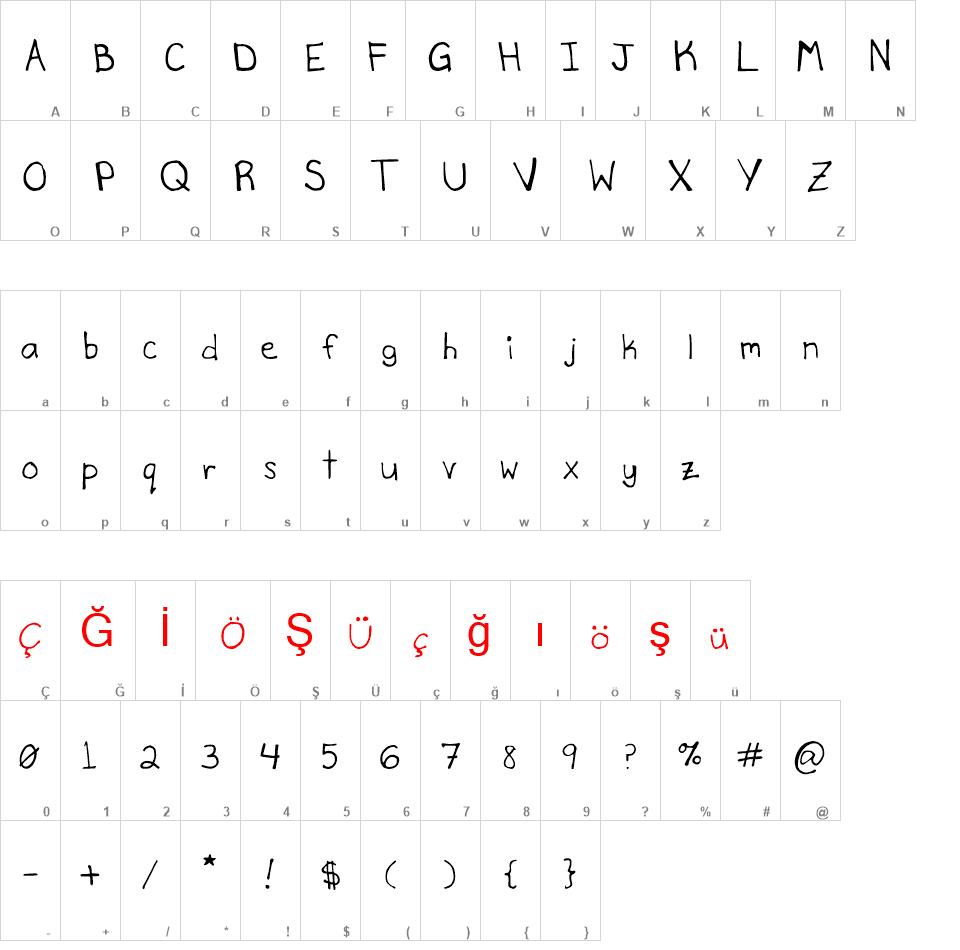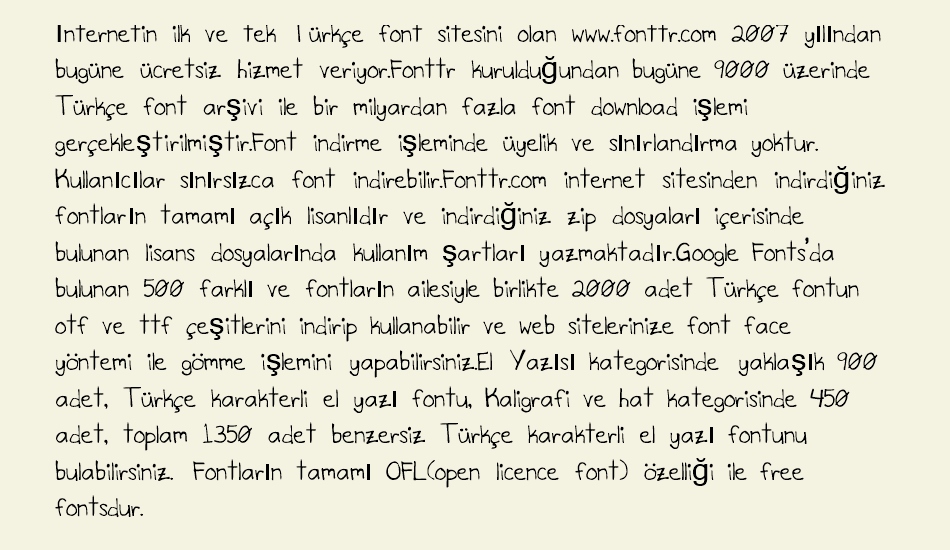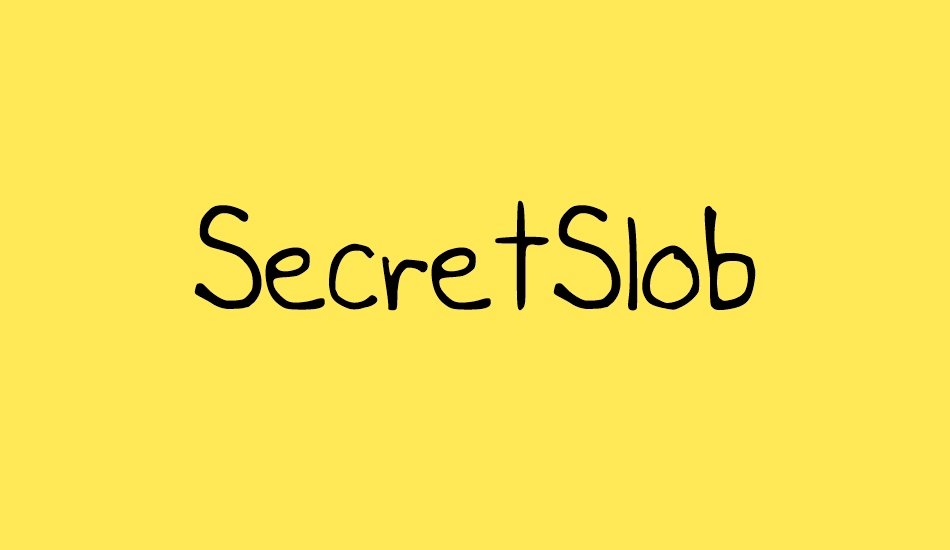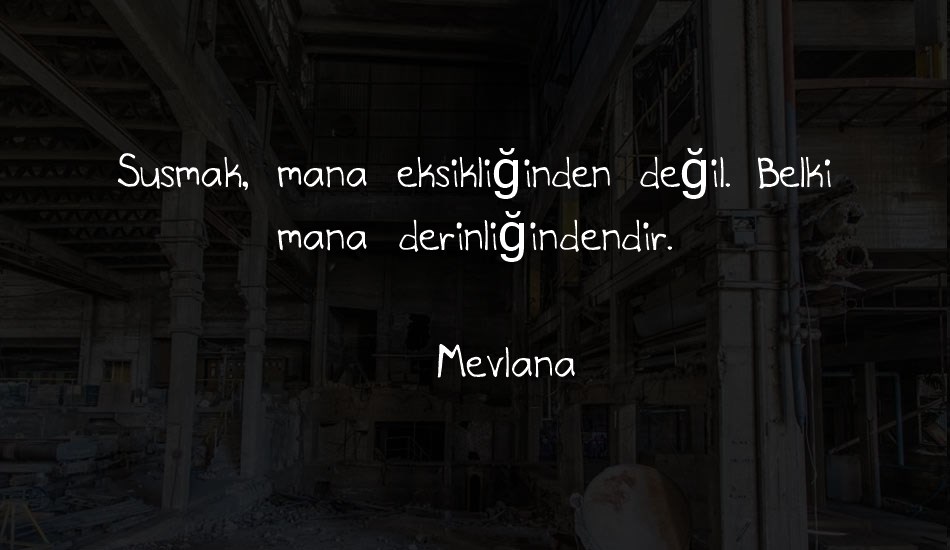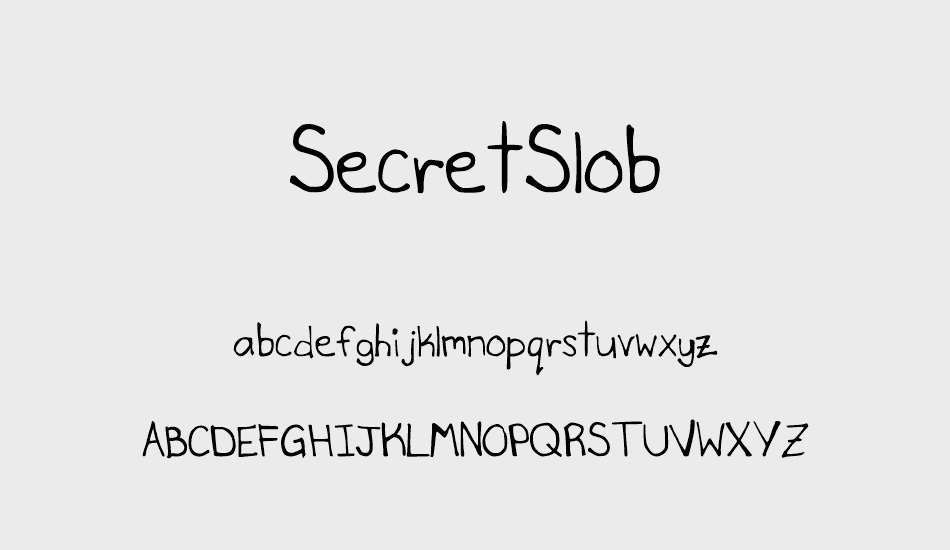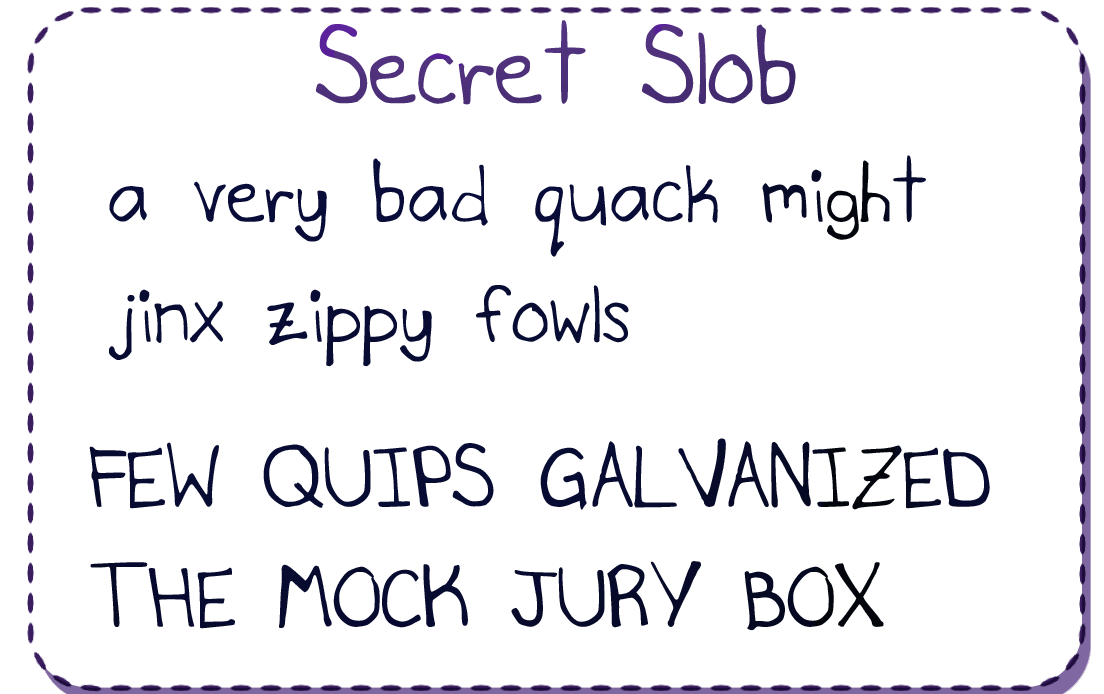
Secret Slob font
Secret Slob
Secret SlobNote of the author
Heya! This is my font, "Secret Slob".
This is a pretty sloppy font. The kerning isn't exactly perfect, and the letters themselves are based on sloppy handwriting to begin with. You may use it, share if you'd like, UNDER THE CONDITIONS THAT WHERE IT IS USED AND SHARED, YOU CREDIT ME & LET ME KNOW, because that's how I roll. Want to use it for a commercial project? Please, contact me.